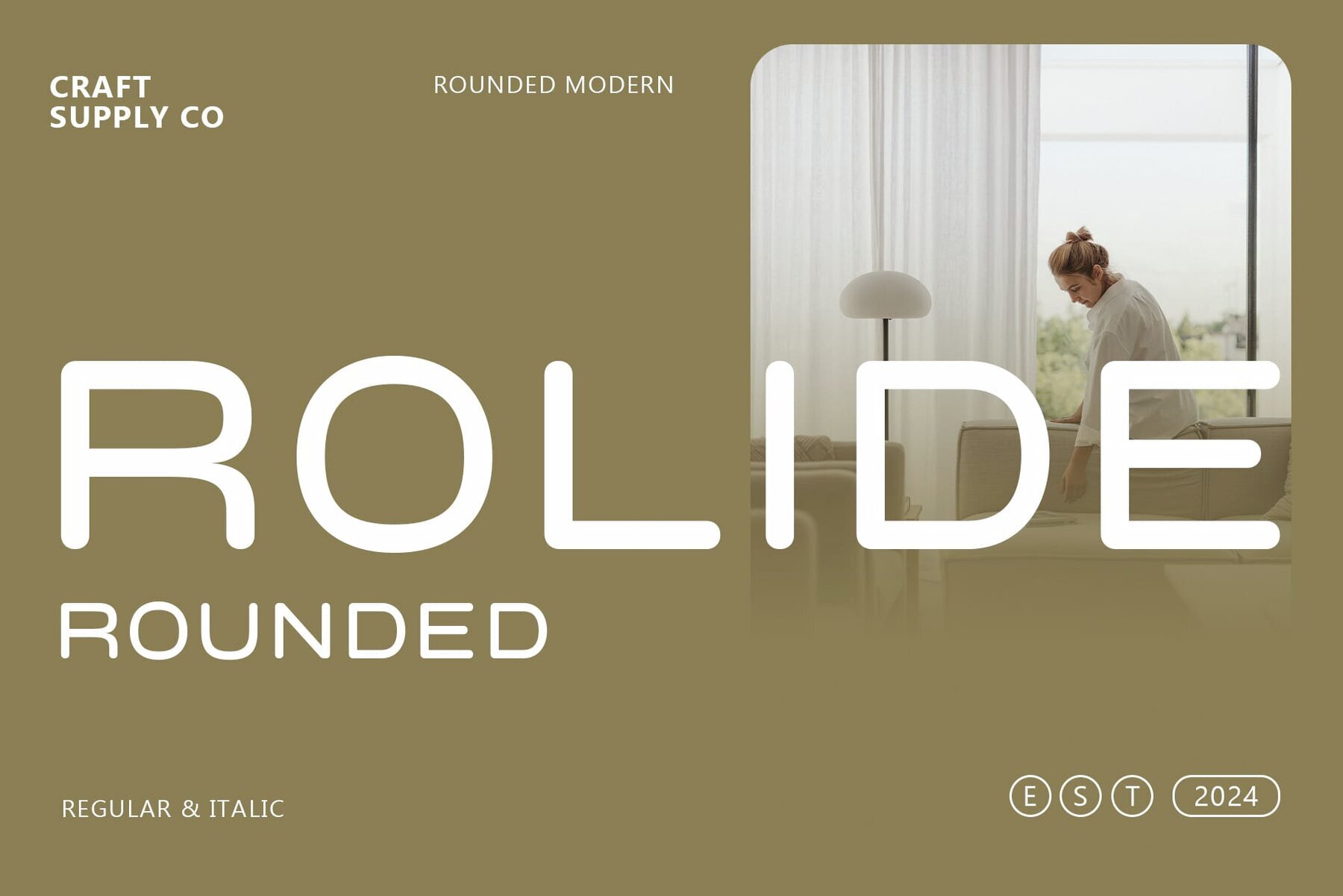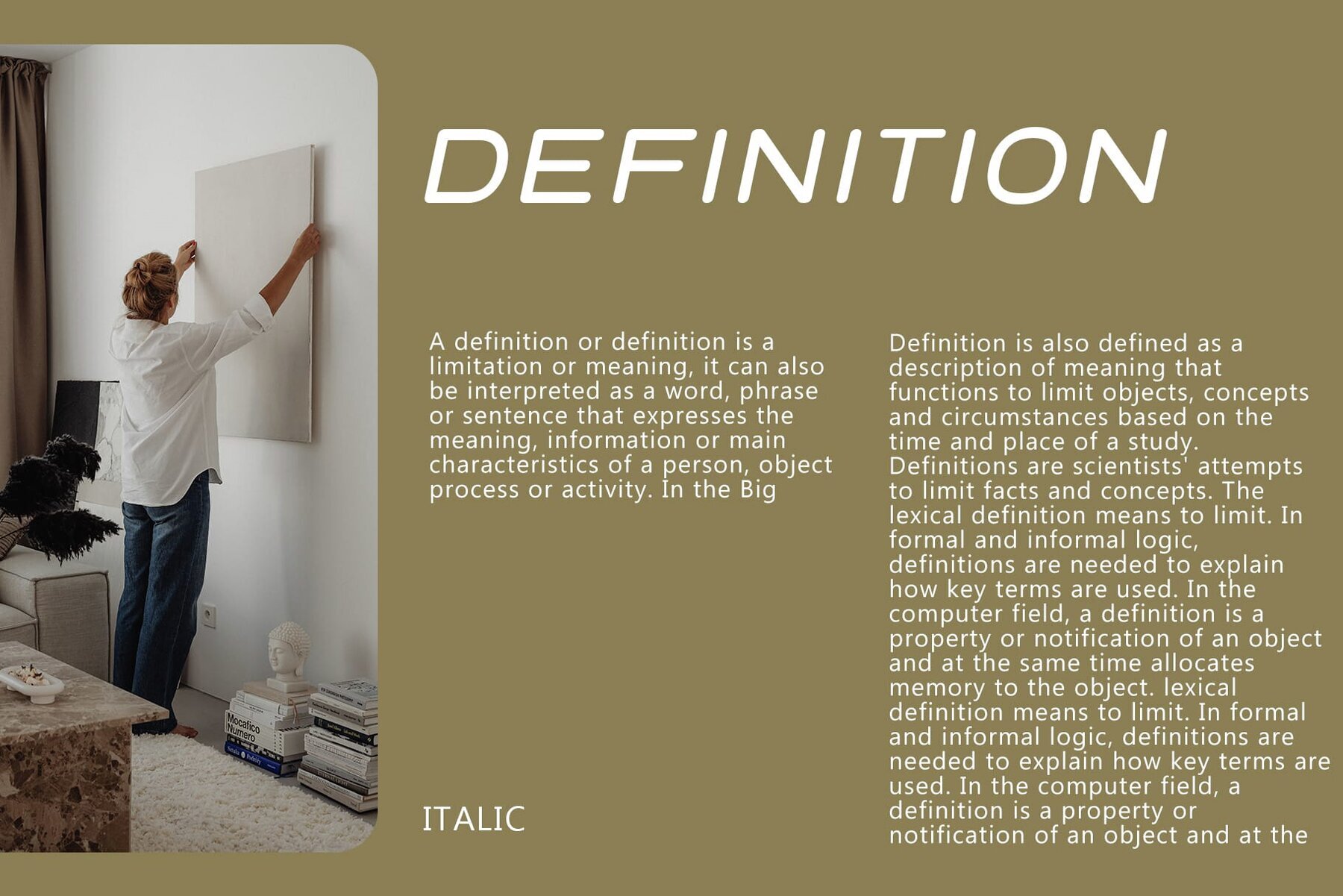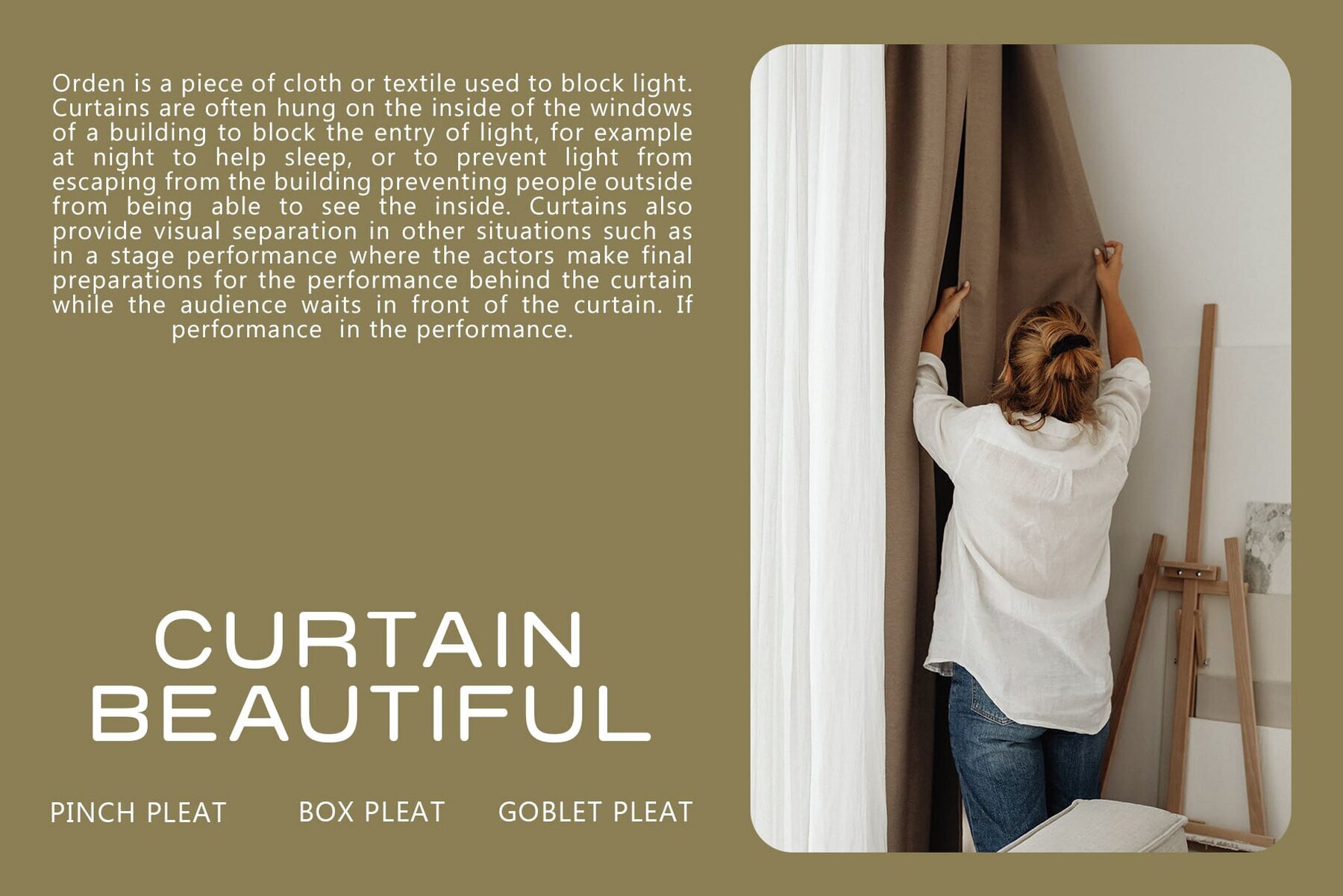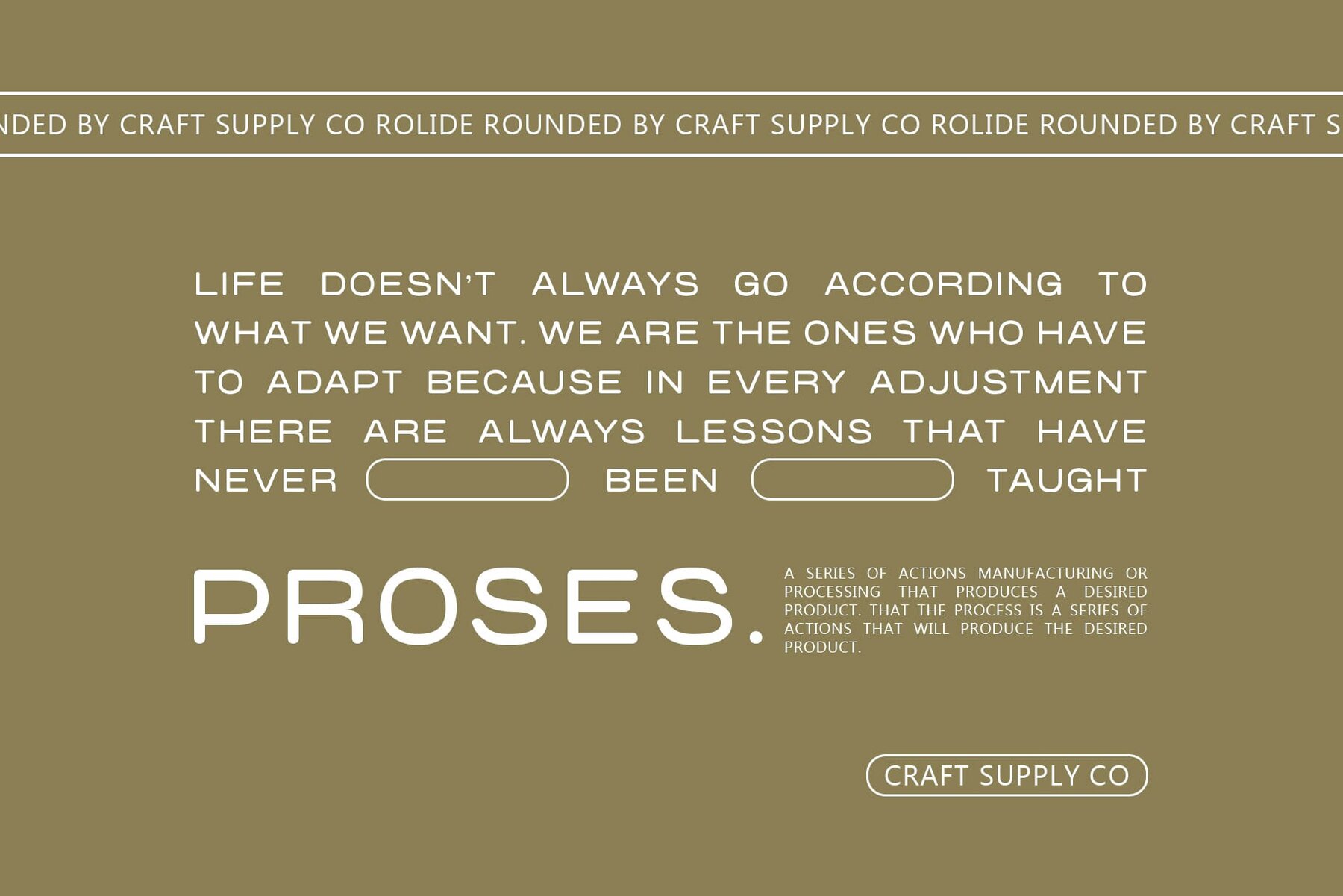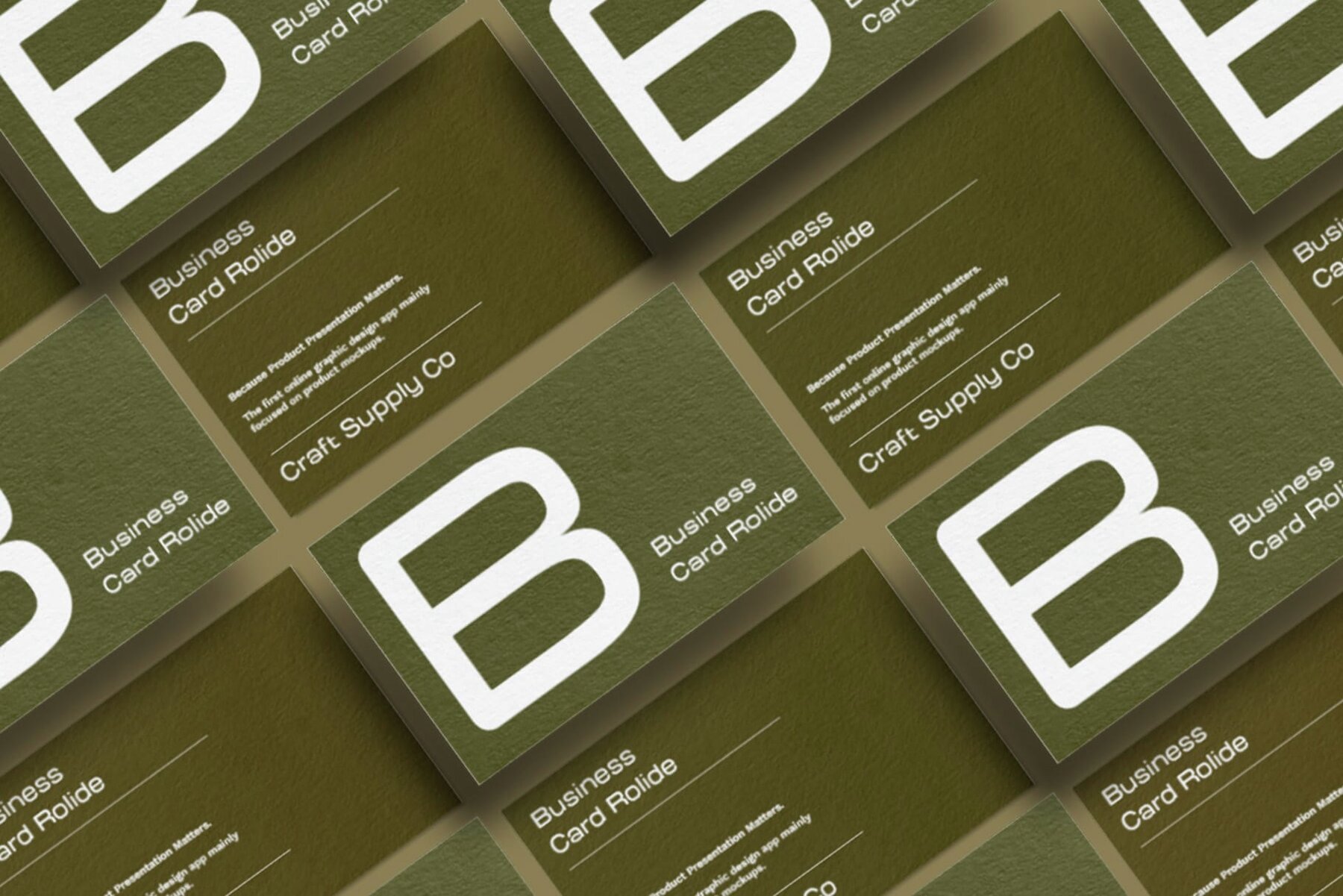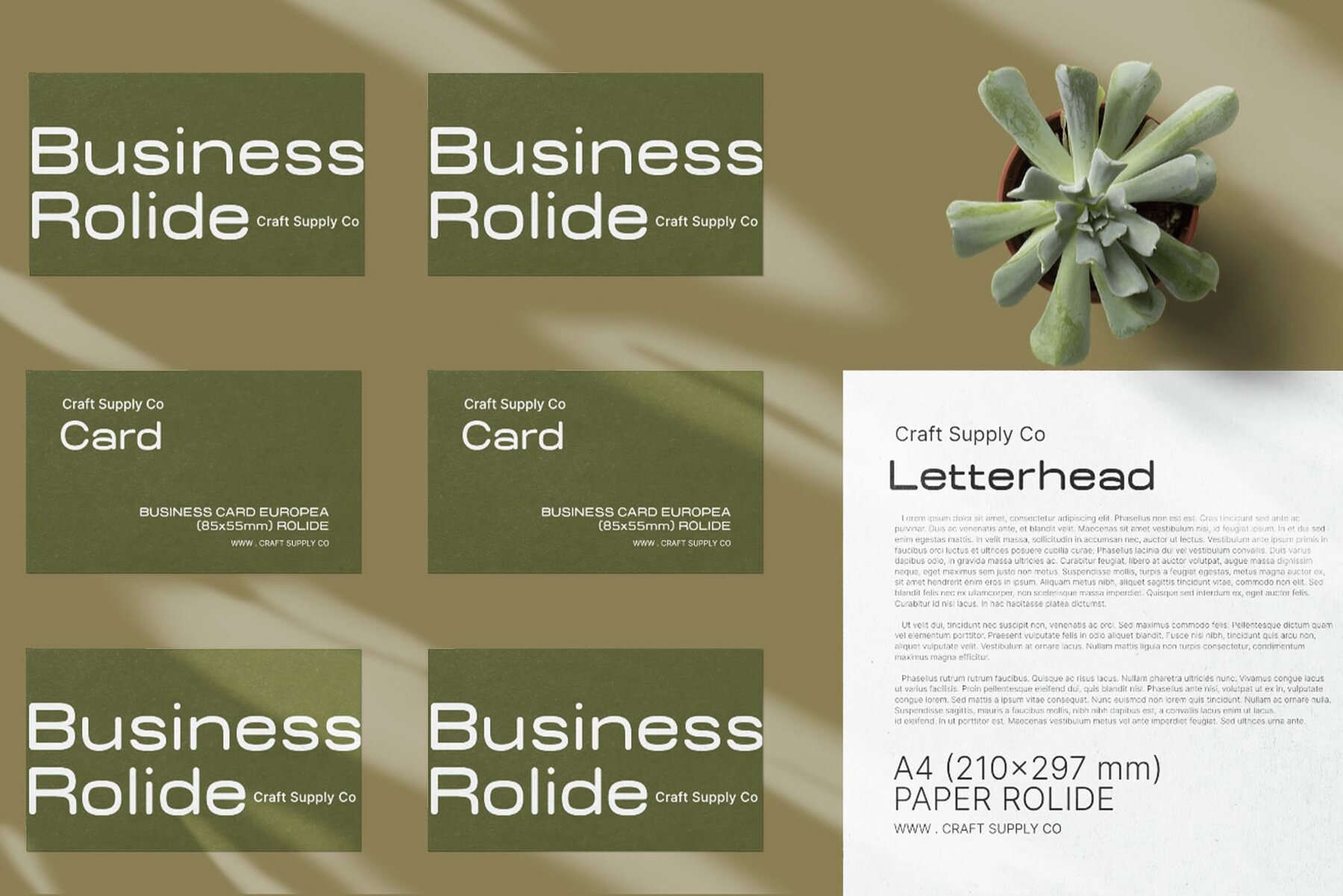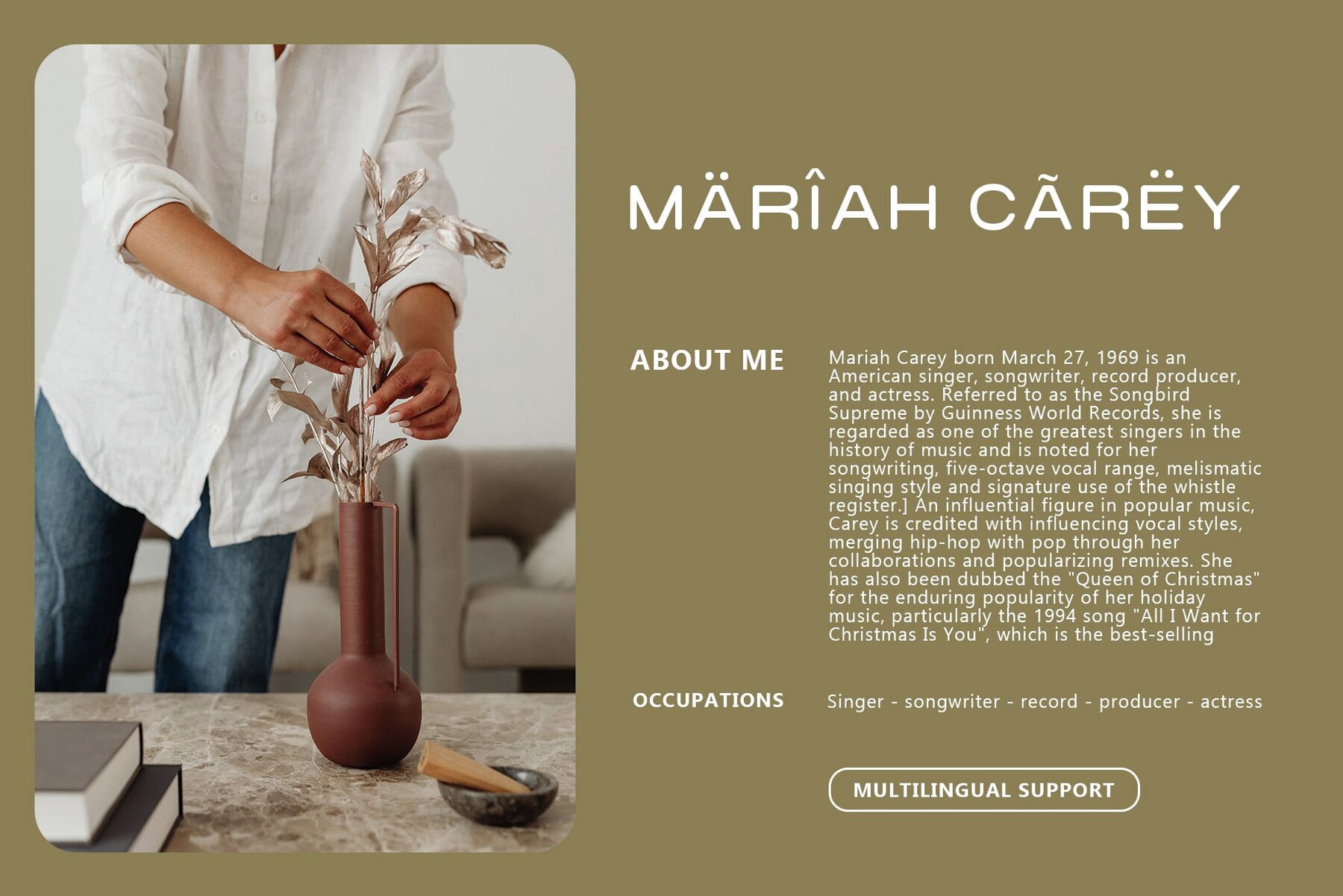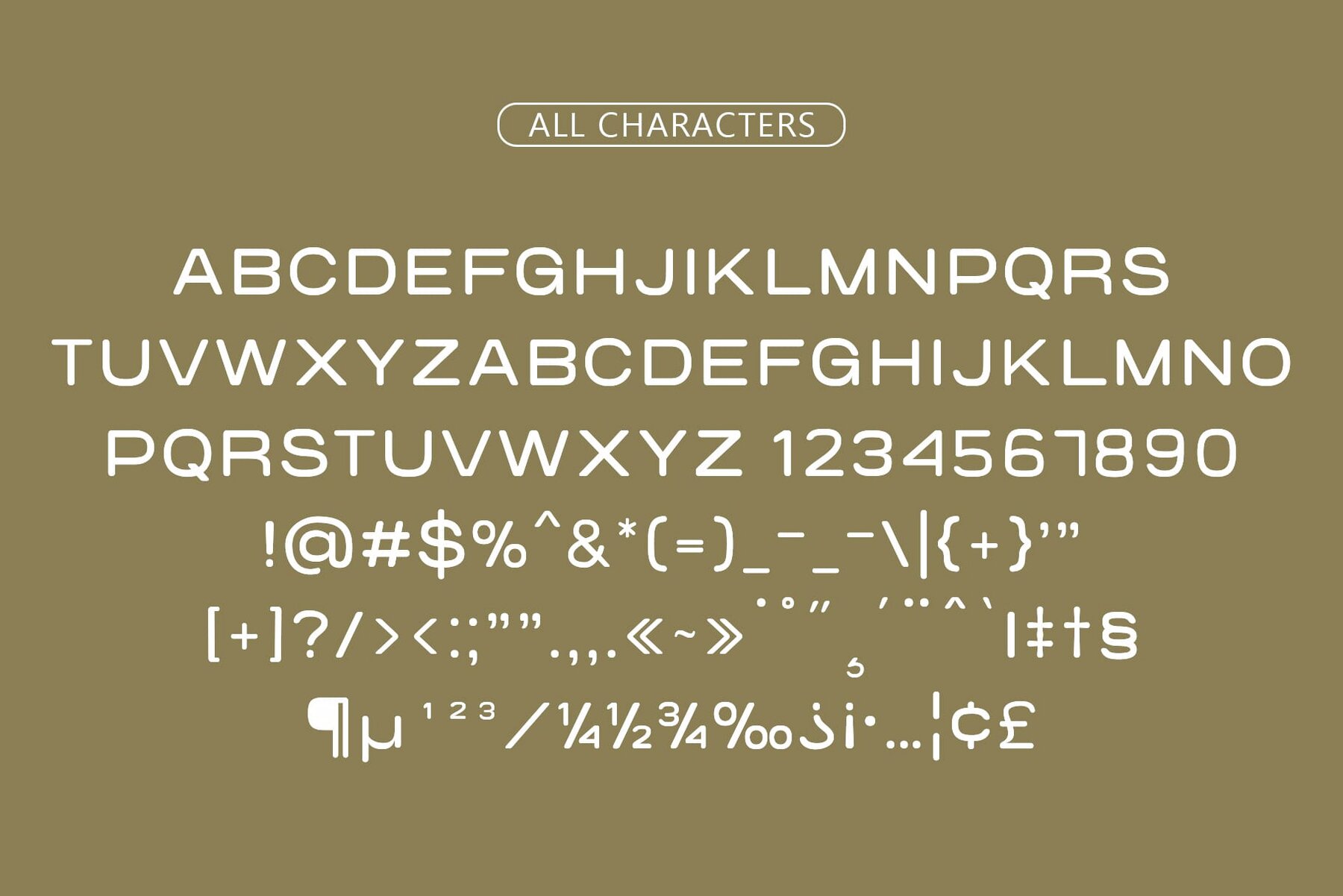
Rolide Rounded Font
Rolide Rounded is a low-contrast sans serif font that offers a subtle yet refined appearance. Its versatile nature makes it ideal for a variety of design contexts, seamlessly blending into both digital and print environments. Embodying modernity, Rolide Rounded exudes a contemporary feel, making it an ideal choice for projects seeking a sleek and up-to-date aesthetic. With its rounded strokes, this font brings a sense of warmth and approachability to text, enhancing readability while maintaining a modern edge. Rolide Rounded excels in diverse applications from web interfaces to branding materials. Whether used in website headers, social media graphics, business cards, or product packaging, this font adapts effortlessly to various platforms and mediums. It ensures consistency and coherence across all touchpoints of a brand's visual identity, making it a go-to choice for designers seeking a reliable typeface. Rolide Rounded epitomizes modern simplicity with its low-contrast, rounded-stroke sans serif design. It's perfect for contemporary projects, offering a subtle yet impactful typographic solution that caters to a wide range of design needs. You can use this typeface without needing any specialized software. If you have any inquiries or need assistance, please feel free to contact us. We appreciate your support in enhancing your creative projects! Best regards, Craft Supply Co.Rolide Rounded: Modernity in Subtlety
Contemporary Vibes
Soft, Rounded Strokes
Versatile Application
Modern Simplicity